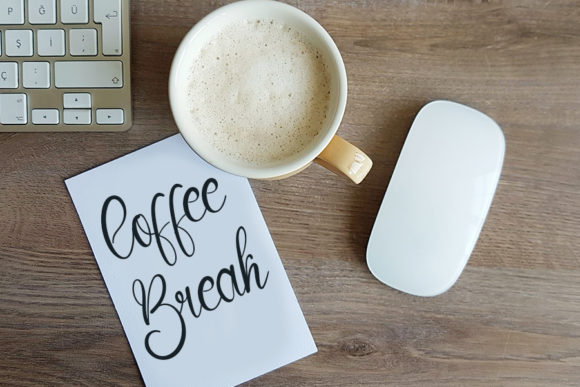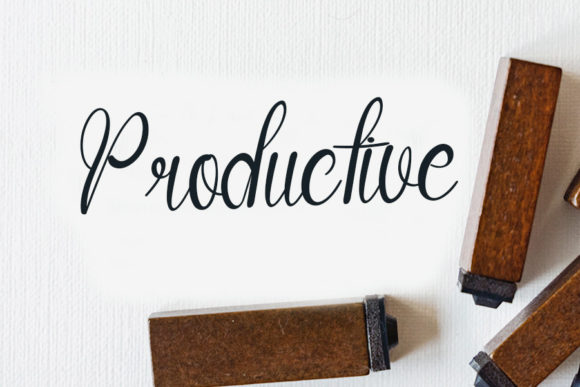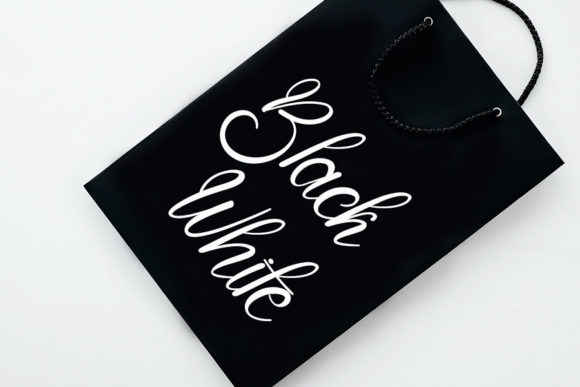
Introduction to Resensi Font
Do you remember that moment when a single design element sparks an entire creative project? For many designers, it’s a beautiful font that sets the tone and style of their work. For us, that moment came with the Resensi Font, a stunning handwritten font that combines classic calligraphy with a fresh, modern twist.
Whether you’re working on a branding project, creating a social media campaign, or designing a wedding invitation, the Resensi Font is an invaluable resource that can elevate your design to the next level. Its high-quality, transparent background makes it perfect for layering and experimenting with different design elements. And the best part? It’s completely free to download and use in your creative projects.
As a design resource, the Resensi Font is a game-changer for designers who want to add a touch of personality and elegance to their work.
Key Features of Resensi Font
- High-quality font design for creative projects, available as a free download.
- Comes in a transparent background, making it easy to use with any design resource.
- Unique, stylish design elements make it perfect for adding a touch of elegance to any project.
- Designed to be highly legible, even at small font sizes, making it ideal for use in presentations, reports, and other documents.
Honest Review: Resensi Font
I recently came across the Resensi Font, and I’m excited to share my thoughts on this design resource. As a designer, I’m always on the lookout for high-quality fonts that can elevate my creative projects.
What works well with Resensi Font is its versatility. The font has a transparent background, making it easy to overlay on any background image or color scheme. This feature is a game-changer for designers who want to create visually appealing designs without the hassle of adjusting background layers.
- โจ High-quality design: The font is well-designed, with clean lines and a modern aesthetic.
However, there are a few limitations to consider: โ ๏ธ The font is only available in a limited number of weights, which may not be ideal for designers who need a wide range of font weights for their projects.
Overall, I’m impressed with the Resensi Font. Its transparent background and high-quality design make it a valuable addition to any designer’s toolkit. While it may have some limitations, it’s a great resource for designers who want to create stunning designs without breaking the bank.
Resensi Font is a versatile and high-quality design resource perfect for any creative project. With a transparent background, this font can be easily integrated into various design applications.
Tips for Getting the Most Out of Resensi Font
For optimal results, use Resensi Font in combination with other design elements to create a visually appealing design. Experiment with different font sizes, colors, and arrangements to achieve the desired effect.
Resensi Font is ideal for various design projects, including: logo designs, infographics, social media graphics, and presentations. With its high-quality design and transparent background, Resensi Font is a valuable resource for any creative project.